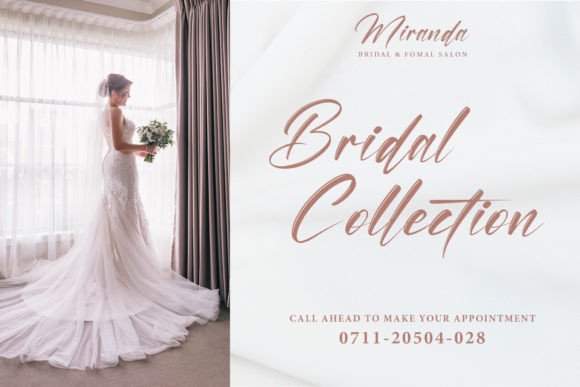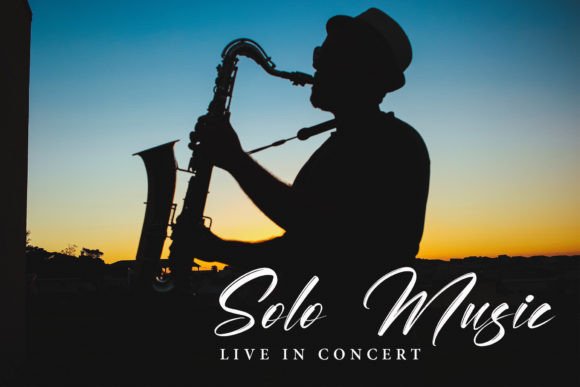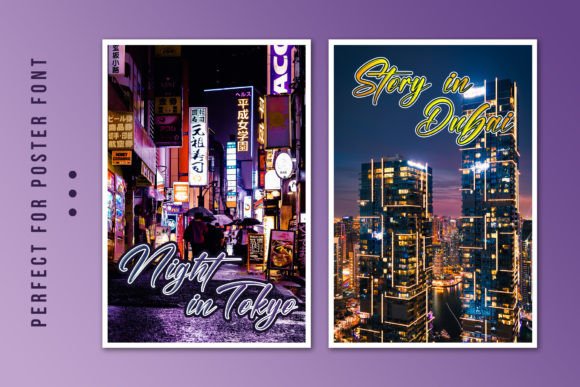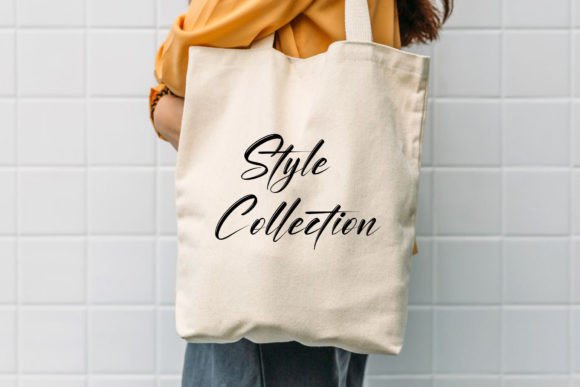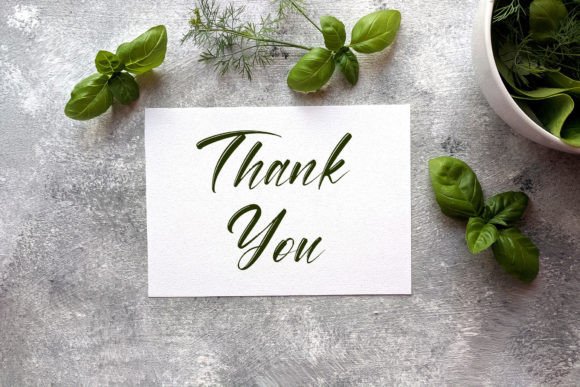
Introducing Brush Signature Font: Elevate Your Designs with Elegance
Are you looking for a font that exudes sophistication and class for your design projects? Look no further than the Brush Signature Font. This exquisite font is designed to bring a touch of elegance to any project, making it perfect for designers and crafters seeking to create stunning visuals.
A Delicate and Classy Look
Brush Signature Font boasts a delicate and classy appearance that is sure to impress. Its balanced design ensures that it looks great in various contexts, from t-shirt designs to invitations, magazines, photography, posters, and more. The font’s refined aesthetic is designed to enhance the beauty of your projects, making them stand out from the crowd.
One of the key benefits of Brush Signature Font is its versatility. This font can be used for a wide range of design projects, including:
- T-shirt designs: Create stunning apparel with this elegant font.
- Invitations: Make your invitations stand out with a touch of sophistication.
- Magazines: Add a classy touch to your magazine layouts.
- Photography: Use the font to add a professional touch to your photography projects.
- Posters: Create eye-catching posters with this beautiful font.
Brush Signature Font is PUA (Private Use Area) encoded, which means you can easily access all the amazing glyphs and ligatures. This feature makes it simple to get the most out of the font, allowing you to create complex and beautiful designs without any hassle.
Why Choose Brush Signature Font?
So, why should you choose Brush Signature Font for your design projects? Here are just a few reasons:
- Elegant design: The font’s delicate and classy look is sure to impress.
- Versatility: Use the font for a wide range of design projects.
- Easy to use: PUA encoding makes it simple to access glyphs and ligatures.
- High-quality: The font is designed to produce high-quality results.
Tips for Using Brush Signature Font
To get the most out of Brush Signature Font, here are a few tips:
- Experiment with different sizes: Find the perfect size for your design.
- Play with colors: Try out different colors to see what works best.
- Combine with other fonts: Use Brush Signature Font in combination with other fonts for a unique look.
- Pay attention to spacing: Make sure to leave enough space between lines and words for a clean look.
Brush Signature Font is a classy signature font that is sure to elevate your design projects. With its delicate and classy look, versatility, and ease of use, it’s the perfect choice for designers and crafters seeking to create stunning visuals. Whether you’re designing t-shirts, invitations, magazines, photography, posters, or more, Brush Signature Font is the perfect tool to enhance the beauty of your projects.